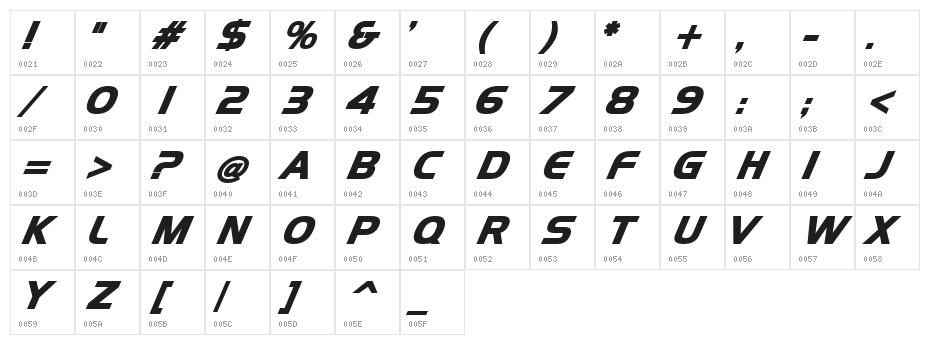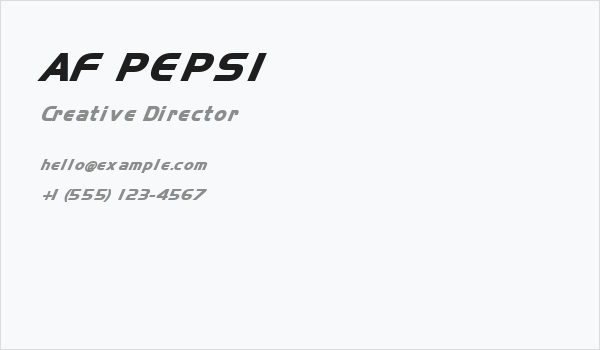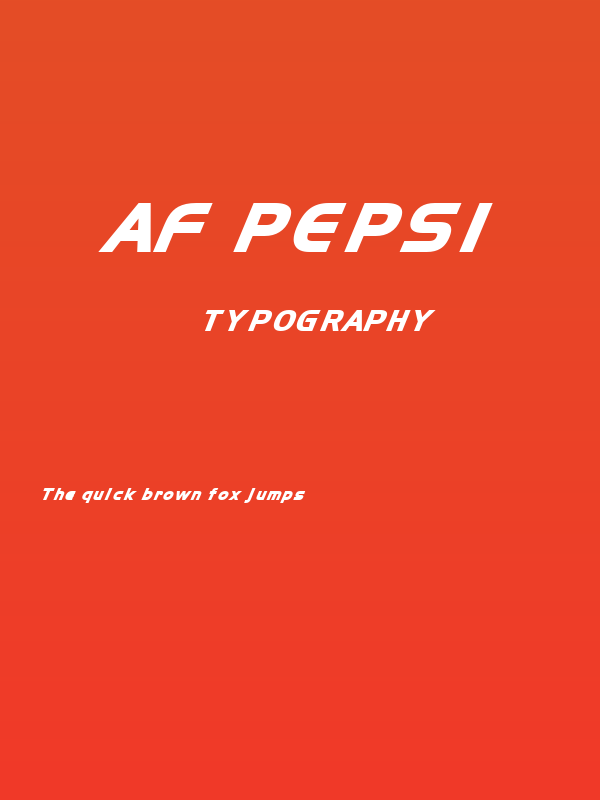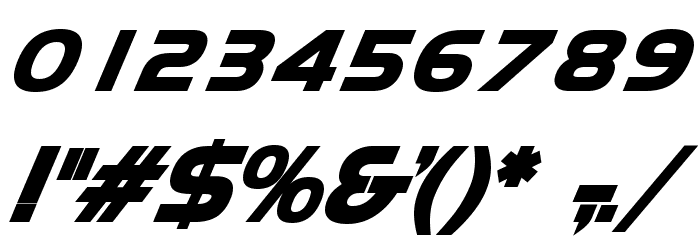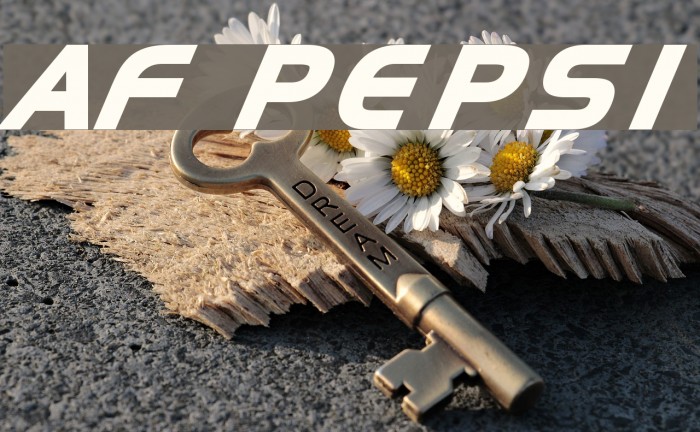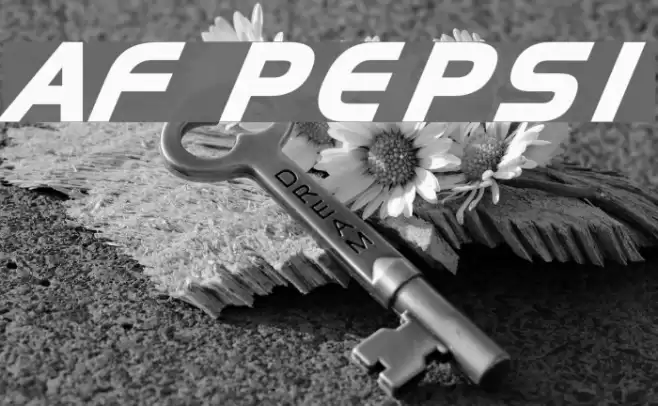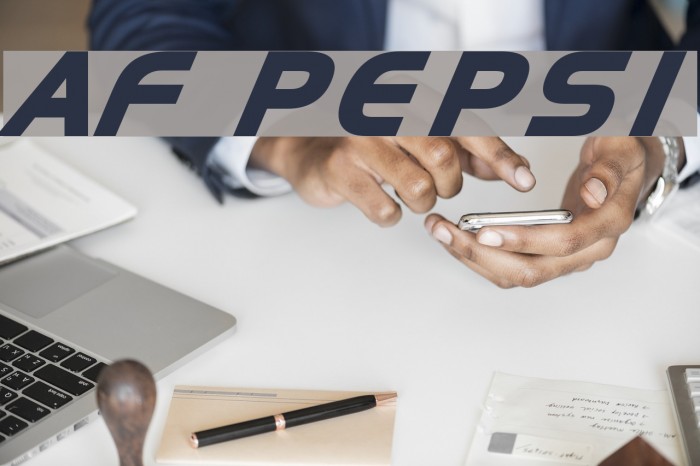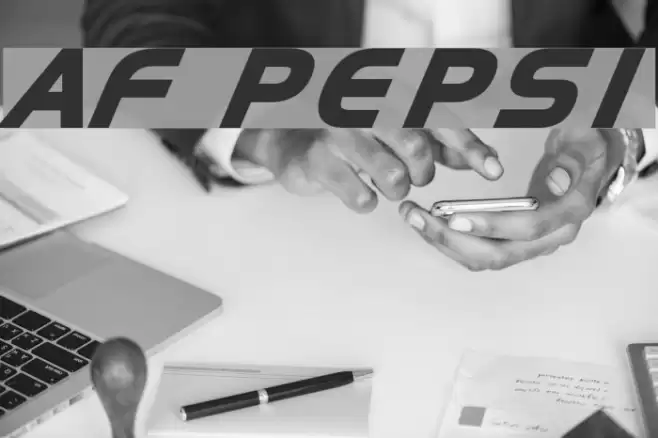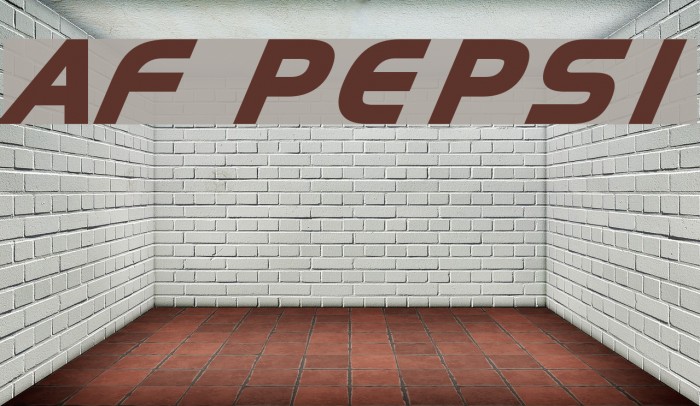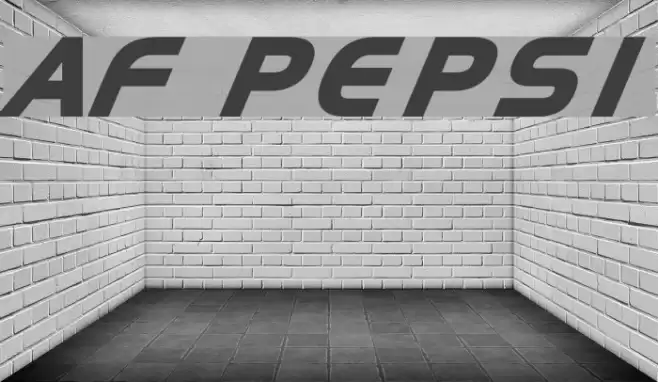
AF PEPSI Font
AF PEPSI Description
This font features a modern, dynamic style with a forward-leaning italic slant, giving it a sense of motion and energy. The characters are bold and slightly condensed, with a consistent stroke width that provides a uniform appearance. The uppercase letters are angular and sharp, while the lowercase letters maintain a similar geometric structure, ensuring readability. The numerals are distinct and align well with the overall design, making them suitable for various applications. Special characters are designed to match the font's sleek and contemporary aesthetic, enhancing its versatility.
| Width | Condensed |
| Use Case | Logos, Headlines, Advertising |
| Proposed Projects | Ideal for branding, sports team logos, dynamic posters, and modern advertising campaigns. |